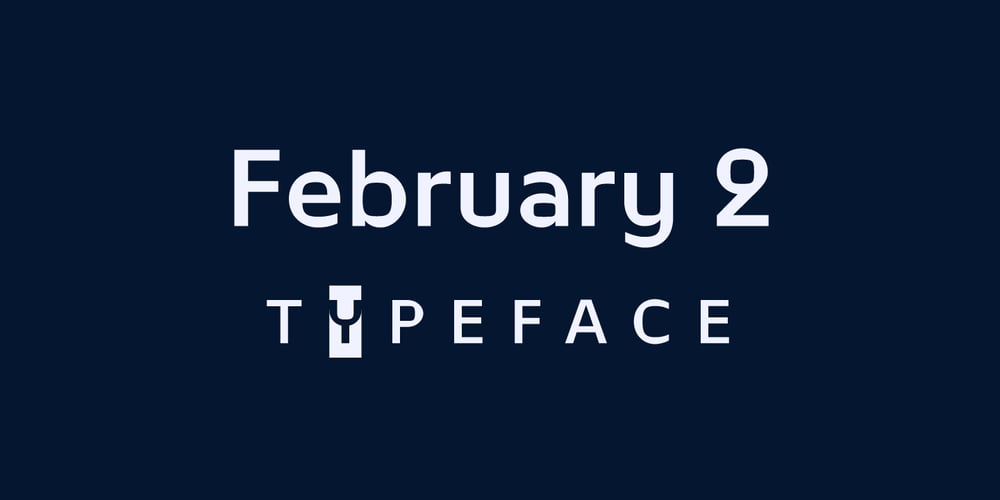
February 2 Font Family was designed by Igor Kosinsky and published by Kosinsky. February 2 contains 2 styles and family package options. The February 2 font was developed on the experimental principle of constructing grotesques. The font combines the contrast between an oval and a rounded rectangle. The developed modular style adds a dynamic character to it. It is ideal for many projects where expressive text is required.Supports extended Latin and Cyrillic. The font was created in 2019.Type designer – Igor Kosinsky.